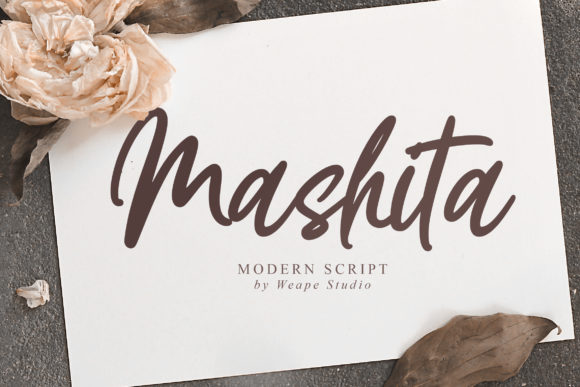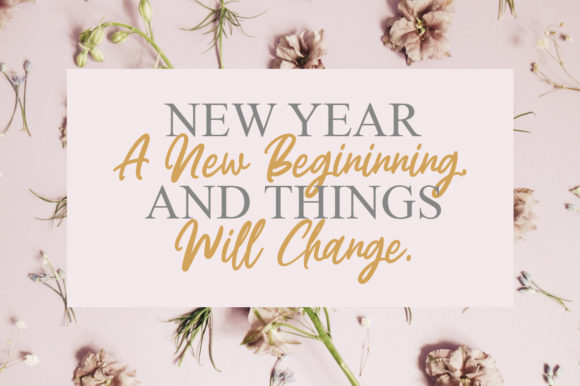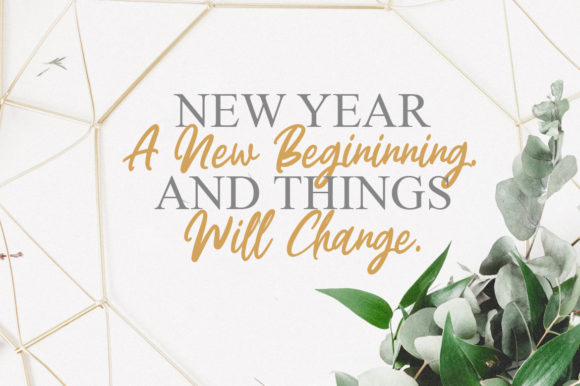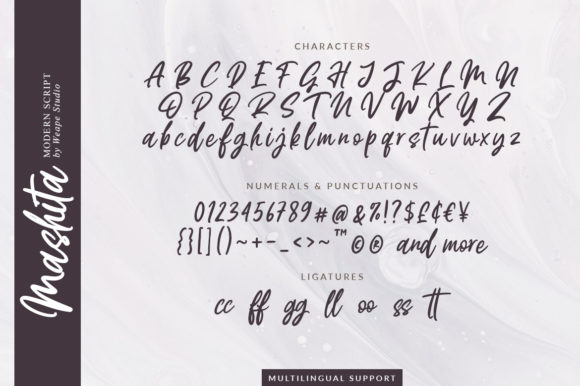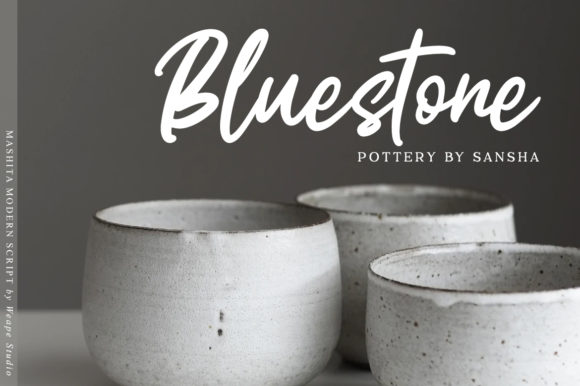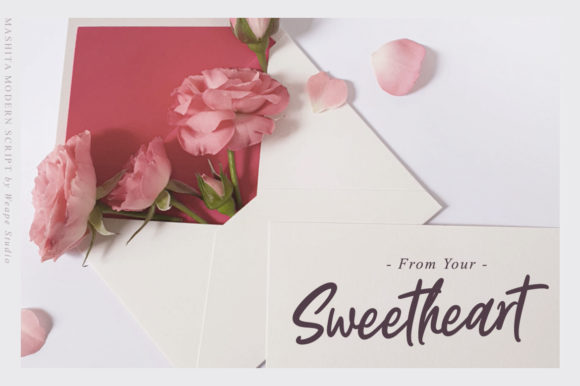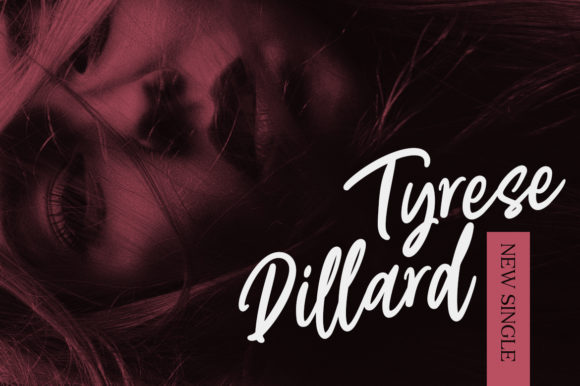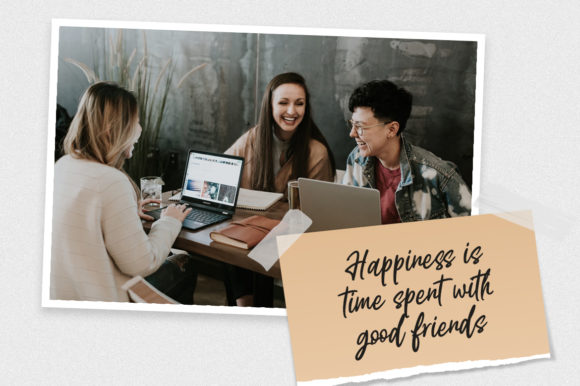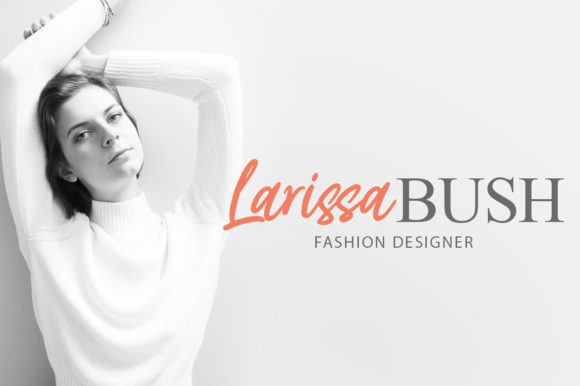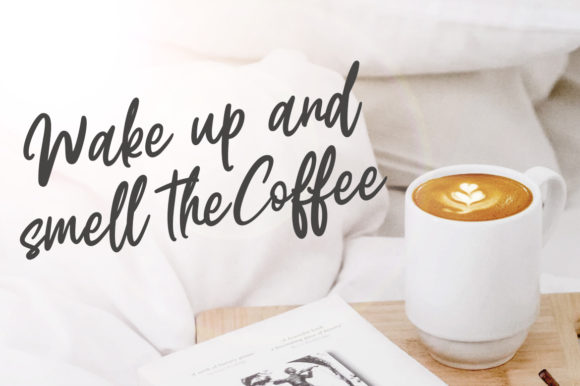
Mashita Font
About Mashita Font
Mashita is a stylish handwritten font which will look beautiful on invitations, greeting cards, branding materials, quotes, posters, and more.
Make your designs stand out with this cute and charming font.